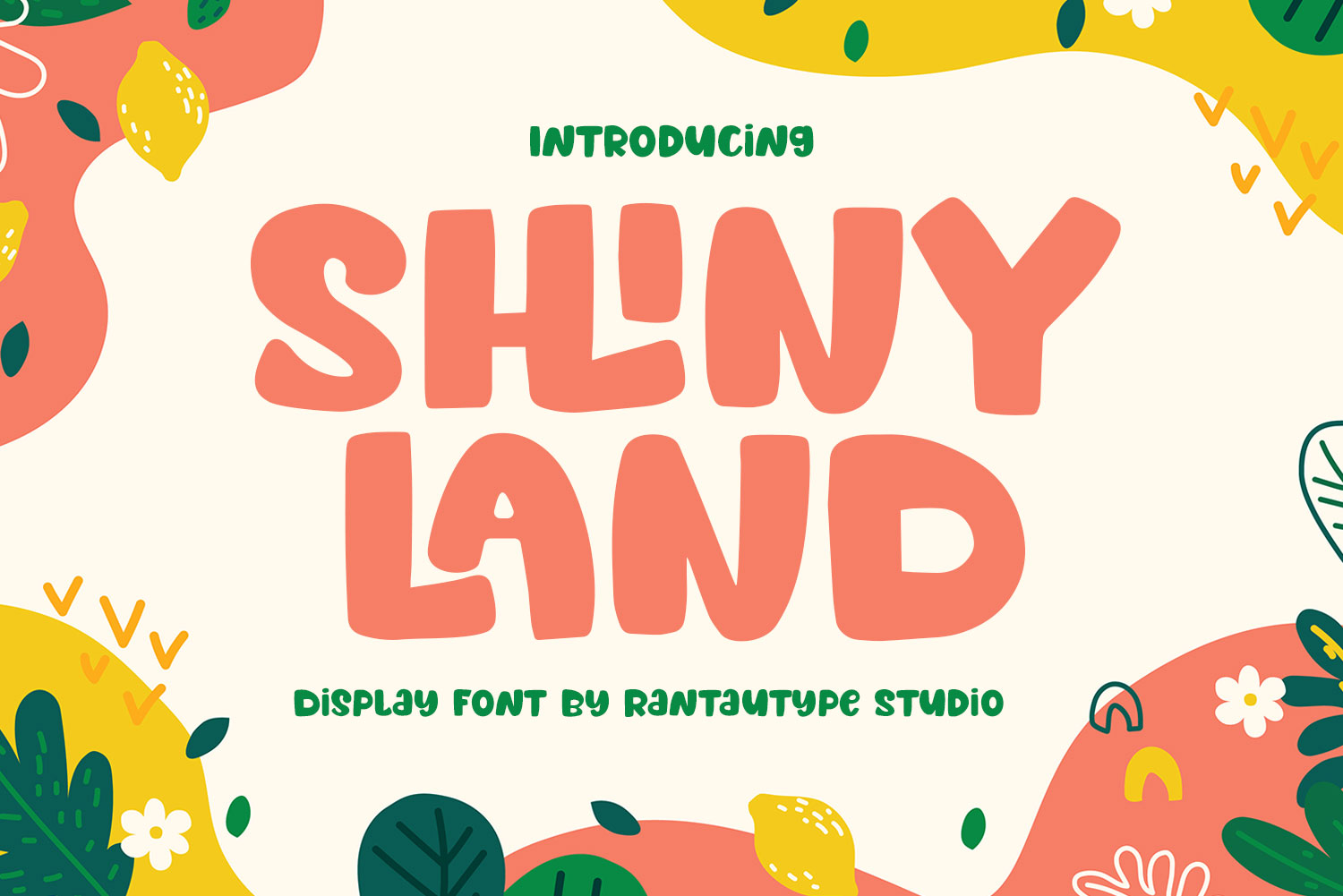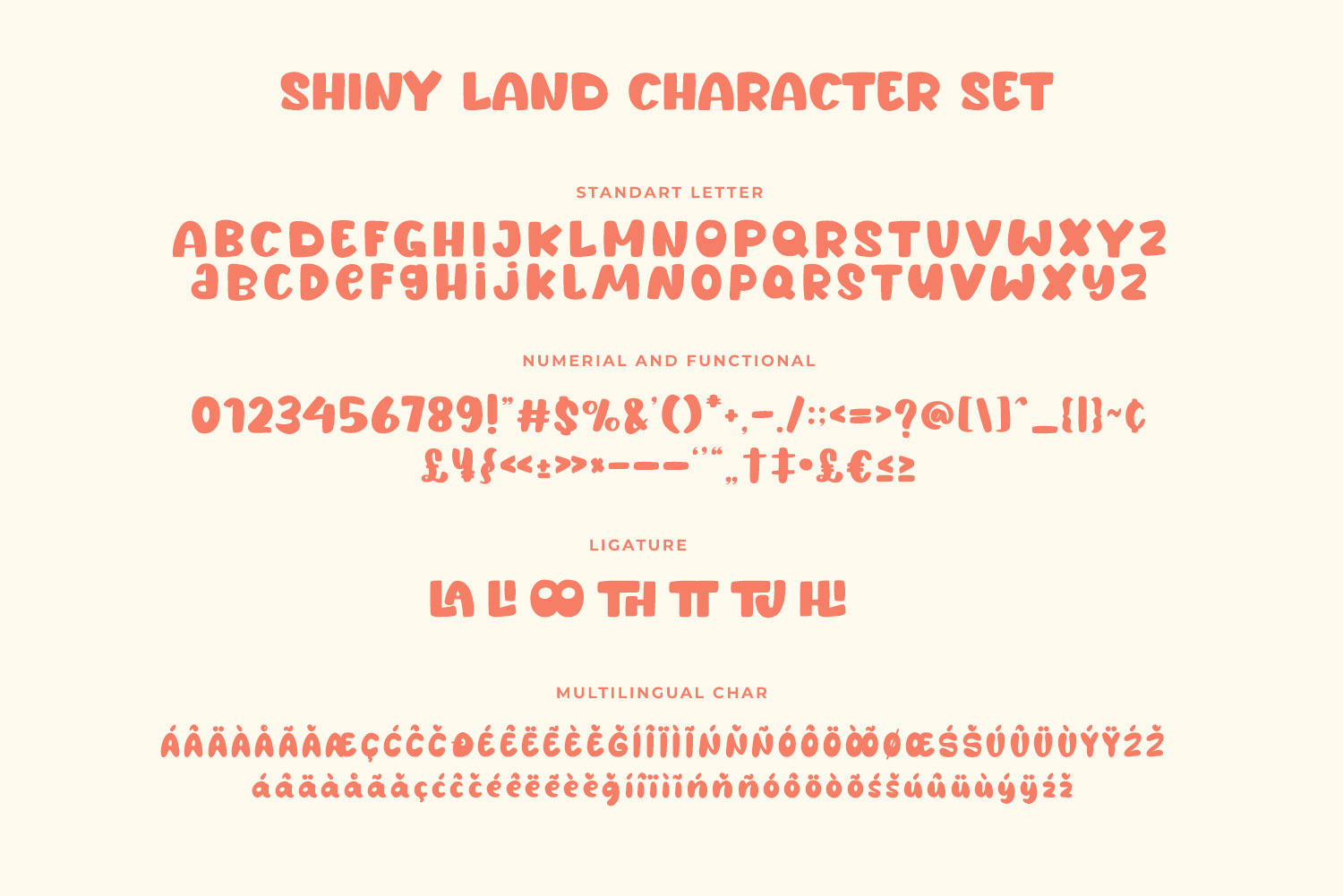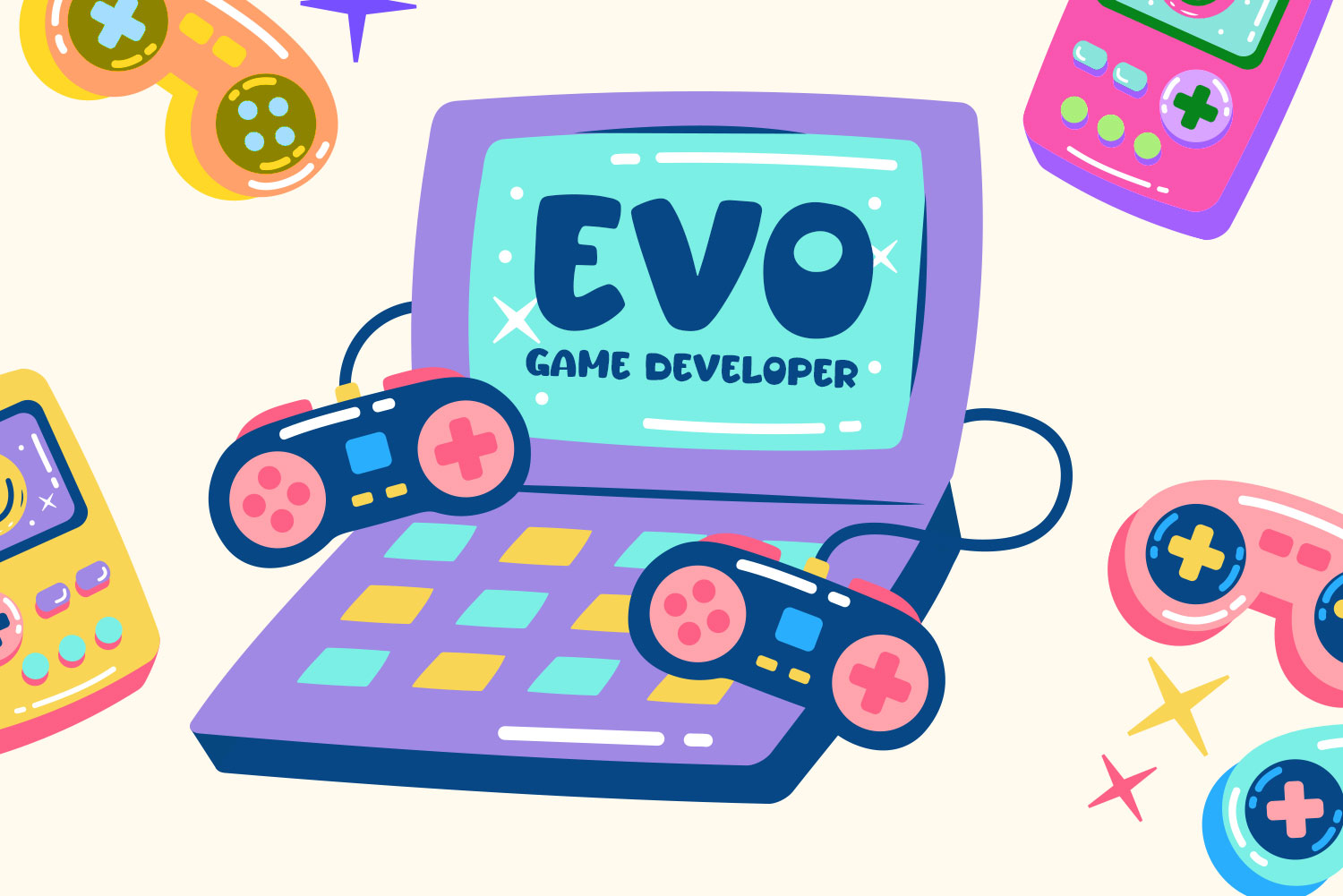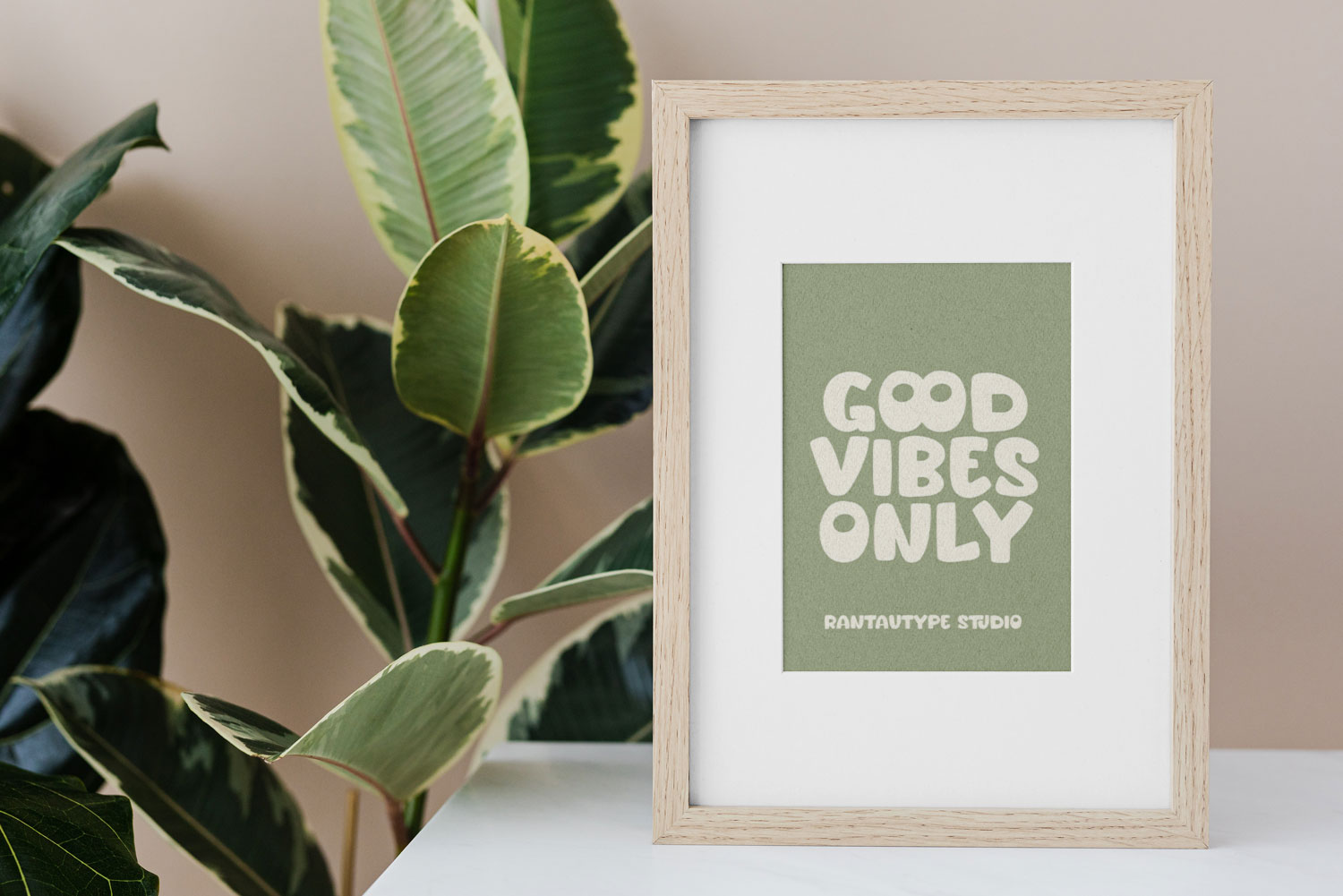
Shiny Land Modern Display Font
Shiny land is modern display font with bold and fancy. Shiny land come with playful, fun and retro look style. Shiny land here to help you to create design project more attractive and awesome.
Shiny land is perfectly choice for any creative endeavor, such as logos, title, watermark on photography, cover, branding, display and magazine, wedding event, corporate brand, quotes, album cover, business card, business project and many other design project with playful taste.